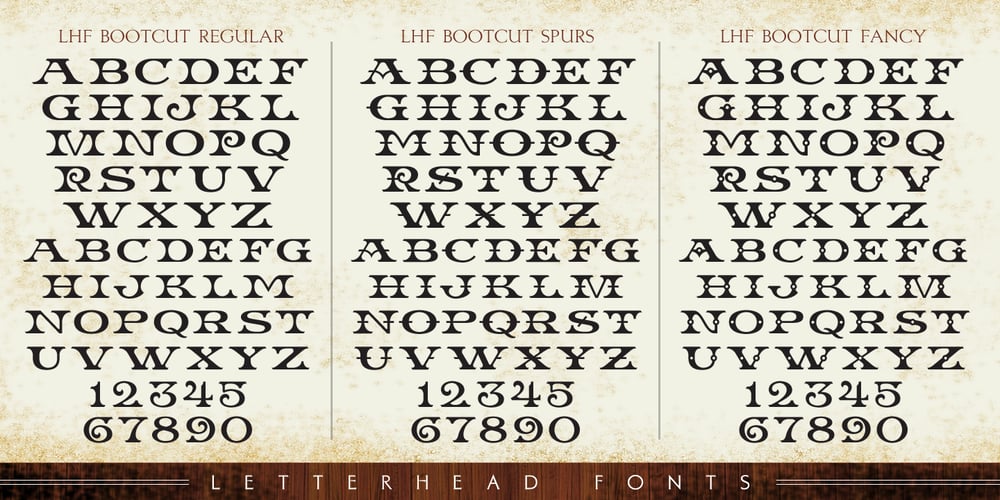
LHF Bootcut
LHF Bootcut font
LHF Bootcut Font Family was designed by Thomas Kennedy and published by Letterhead Fonts. LHF Bootcut contains 3 styles and family package options. An unusual Western style set featuring 3 different versions: Regular, Spurs, & Fancy. Small caps differ slightly and are raised a bit higher than the uppercase letters.